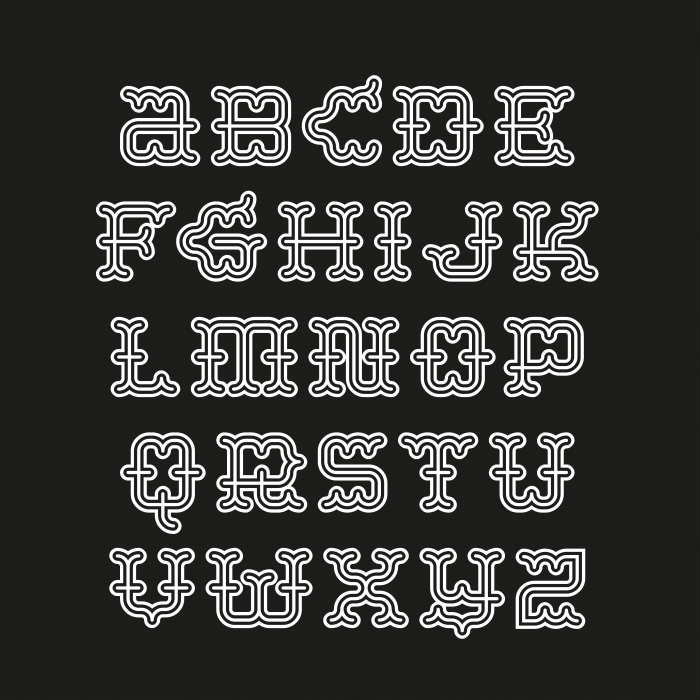
some alternates in the lower case.
Really nice slab serif! You even managed to create the triline + brick needed for this font. Although it's not 100% perfect, but it should be close enough until Meek creates such a brick…
Very beautiful and intricate, almost Western looking. These curvy inline fonts are delightful.
I'm with the guys. A ton of personality and art on these glyphs.
It's rounded, it's ornate, it's inline. Fantastic hybrid!